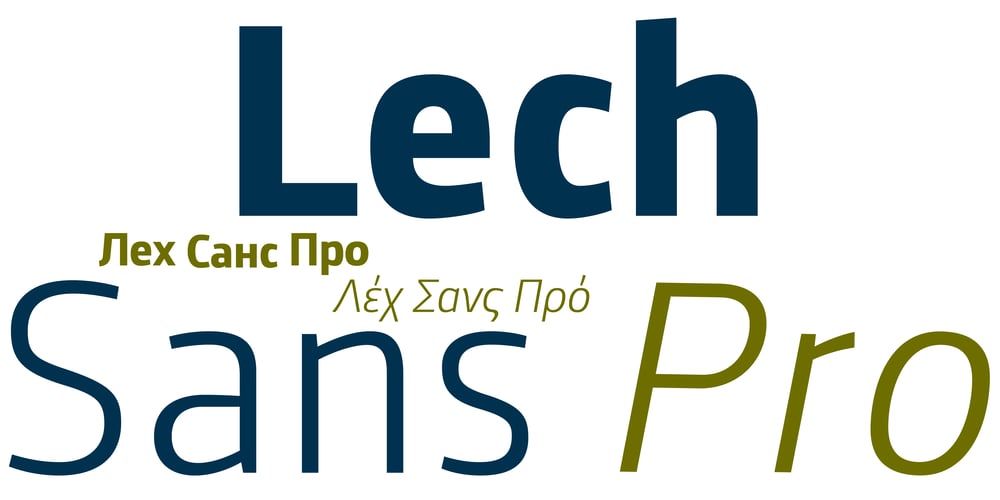
Lech Sans Pro Font Family was designed by Ingo Zimmermann and published by Ingo. Lech Sans Pro contains 8 styles and family package options. A modern sans serif – large x-height, lively formsThe Lech Sans Pro is businesslike-modern but at the same time present the effect of liveliness and movement.The shapes of the individual characters follow the “humanistic” form language of modern faces. In this way, Lech Sans Pro offers an attractive alternative to most of the sans serif fonts used today.The proportions have been selected to be very legible even as a body type for longer texts. The font is so robust in detail that a title in large capitals is very eye-catching. It can function positively as well as negatively and is also still legible from a great distance.Lech Sans Pro supports West European languages including Scandinavian, Central and Eastern European languages, also including Turkish, Vietnamese as well as Greek and Cyrillic.Along with ligatures for the letter combinations fi, ff, fl, tt and tz the font also includes stylistic alternates for N, R, f, l as well as for the German sharp s and the figure 3.Additionally, Lech Sans Pro offers several sets of figures: proportional standard figures of equal height lining figures in height of the capitals proportional medieval figures with ascenders and descenders disproportional tabular figures of equal width superior and inferior scientific figures and numerators resp. denominators for fractions circled figures